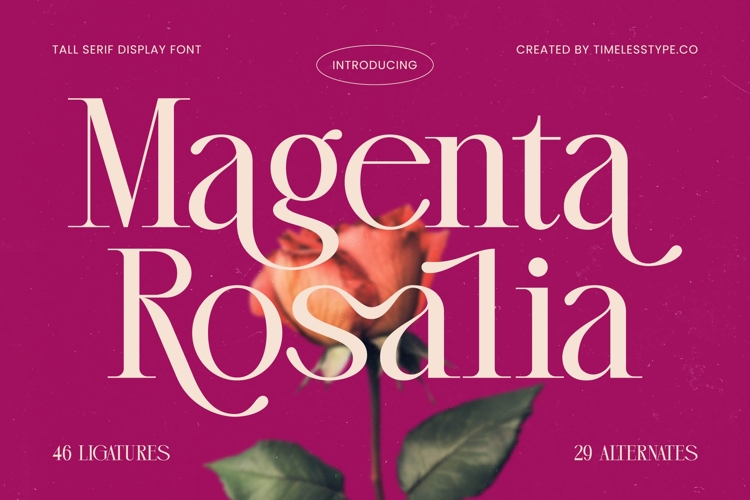
Magenta Rosalia - Tall Serif Display Font
Unleash an aura of unparalleled sophistication with Font Magenta Rosalia - Tall Serif Display Font Serif Display. This exquisite tall serif font commands attention, blending classic elegance with a distinct contemporary flair. Its high-contrast strokes and gracefully extended ascenders create a visual rhythm that is both refined and utterly captivating, designed to make a truly bold statement in any design project.
Elevate your typographic designs to a realm of bespoke artistry. Font Magenta Rosalia - Tall Serif Display Font Serif Display is meticulously crafted with an impressive collection of 46 ligatures and 29 alternates, offering unparalleled customization options. This rich array of stylistic choices empowers designers to forge unique, expressive headlines and logos that resonate with timeless elegance and individuality.
Perfectly poised to define luxury and exclusivity, Font Magenta Rosalia - Tall Serif Display Font Serif Display is the ultimate choice for projects demanding a premium aesthetic. It is ideally suited for luxury branding, high-end packaging, editorial design, fashion magazines, elegant invitations, and any application requiring eye-catching headlines or impactful display text. Infuse your creations with a touch of grandeur and sophisticated charm.